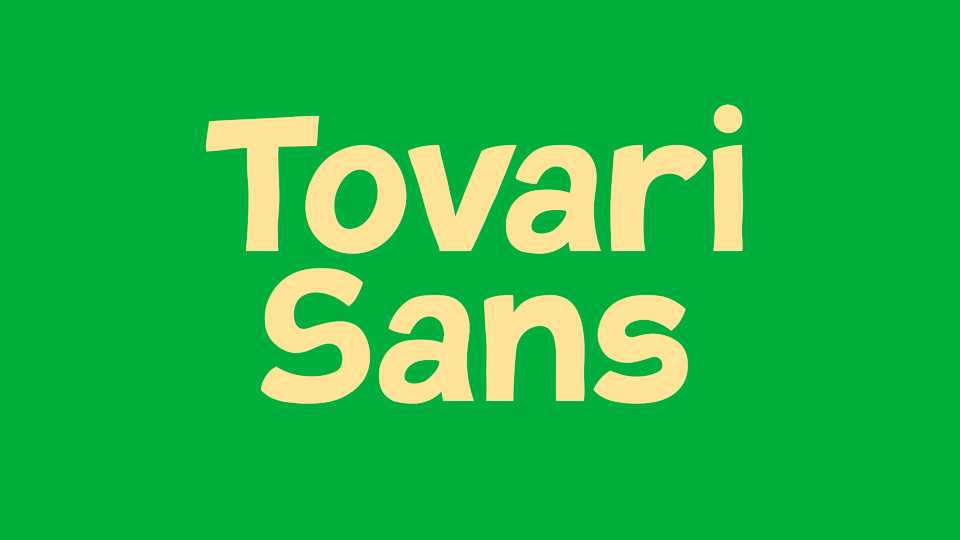
Download Tovari Sansfont, a lovely and cute sans serif typeface with a very friendly character. Great for crafts, kids products, book covers, games, t-shirts and more.
Designer: Verneri Kontto